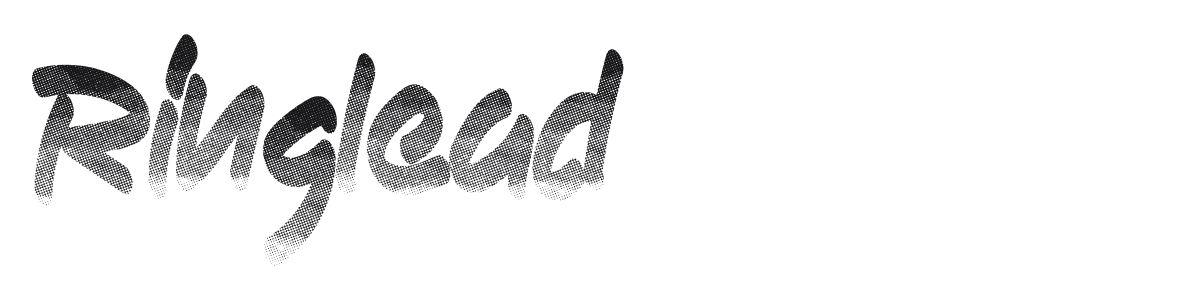
Ringlead
Ringlead is a rough brush face from Xerographer Fonts with heavy, uneven strokes that feel like they were laid down fast with a dry, half-loaded brush. The texture is genuinely gritty, with broken edges and visible bristle marks that give it a raw, grunge-poster quality. Best for headlines and short display text where you want something that looks hand-painted and a little confrontational.